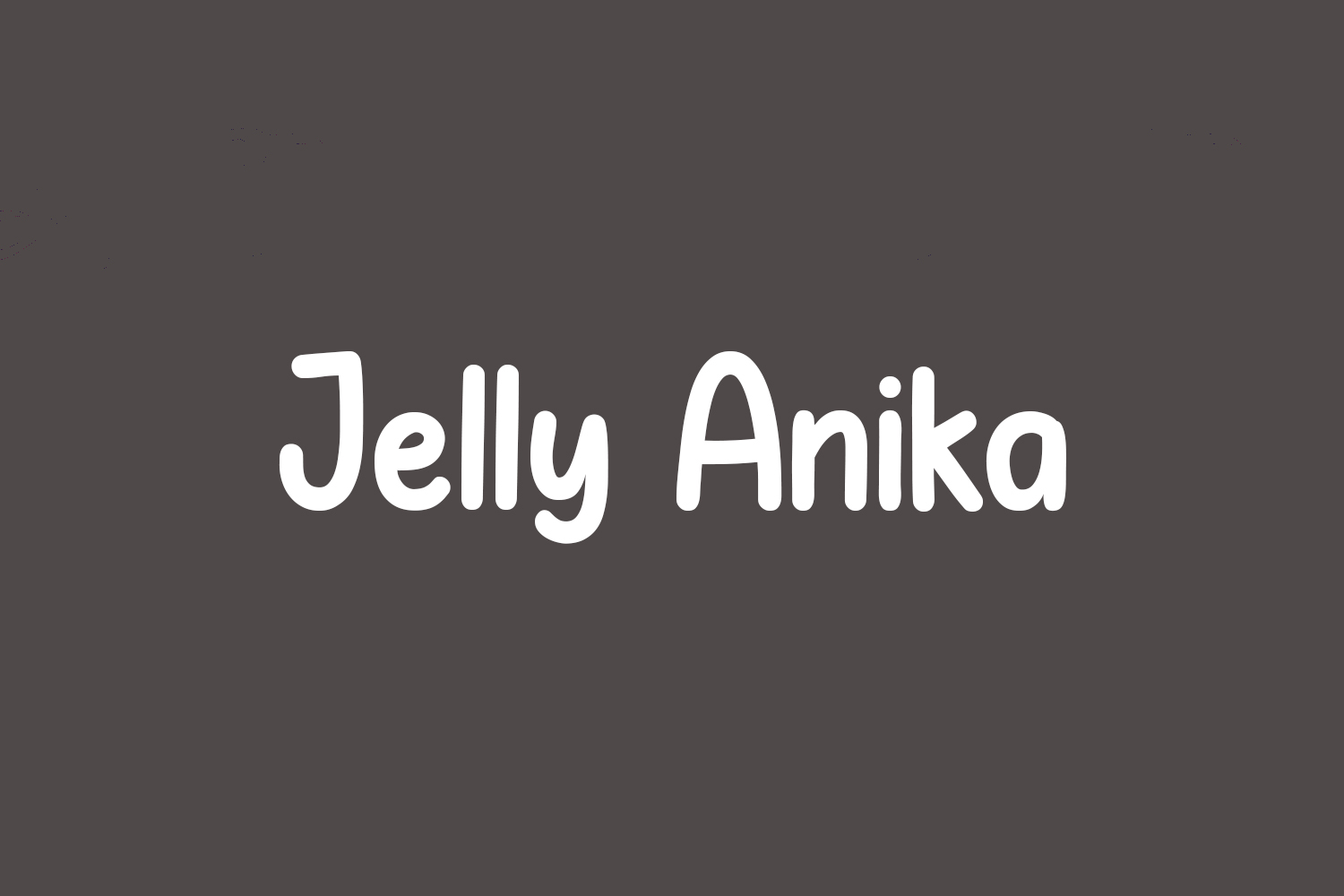
Jelly Anika Free Font is a cool and playful display font that embodies fun, quirkiness, and authenticity. This enchanting display font will turn any creative idea into a true standout. Get creative with its childlike playfulness, and use it to brighten up any kids and school project. Jelly Anika Free Font was designed by EFOS Studio and is free for personal use only. Please purchase the full version for commercial use.